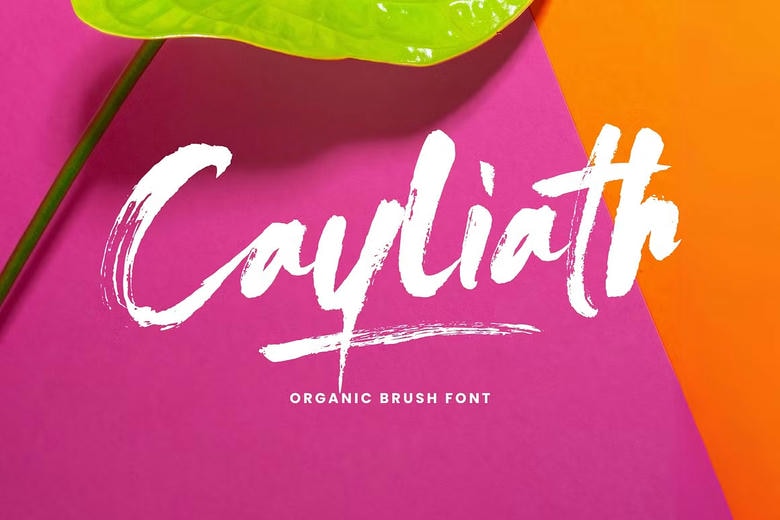
Cayliath Font
Cayliath Brush Script is a dry hand-brushed font that makes it easy to create beautiful hand-lettering. It works well for logos, handwritten quotes, product packaging, headers, posters, merchandise, social media, and greeting cards.
Cayliath Brush Script Font